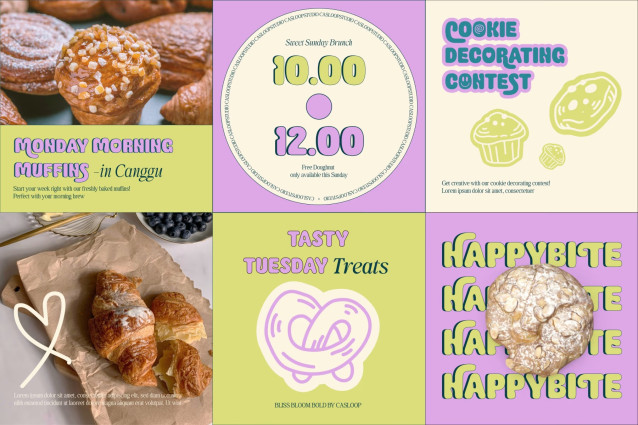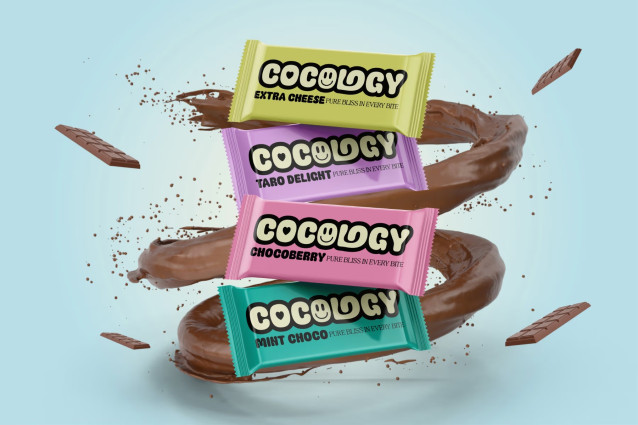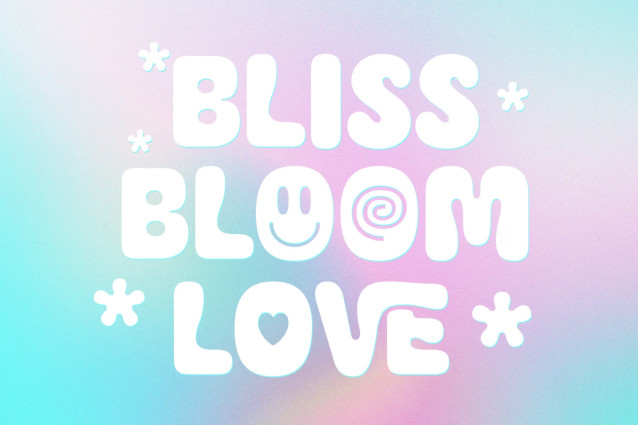
Bliss Bloom Bubbly Cute Typeface Font
Introducing Bliss Bloom a font that encapsulates the essence of playfulness and bubbly charm. This chunky cute rounded typeface is meticulously crafted to bring a touch of whimsy to your creative endeavors.
Bliss Bloom stands out with its unique blend of chunkiness and cuteness. The rounded edges create a playful and friendly vibe, making it ideal for a variety of applications.
This font holds the superior advantage of being both impactful and dynamic. Its bold weight ensures visibility and leaves a lasting impression, making it perfect for logos, branding, and album covers.
Designed for versatility, Bliss Bloom is not limited to just one medium. Whether you’re working on a website, fish fluid packaging, 3D project, or fashion poster, this font seamlessly integrates into your design, adding a touch of fantasy and love. Its single variant ensures simplicity and ease of use.
The pastel color palette of Bliss Bloom evokes a child-friendly and cute aesthetic, making it an excellent choice for kid-centric projects. The font radiates love and charm, aligning perfectly with a feminine and pastel-themed style.